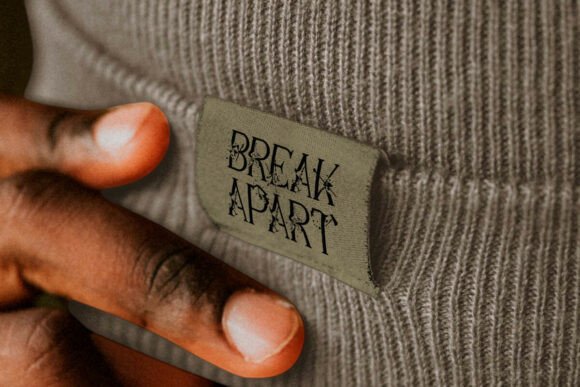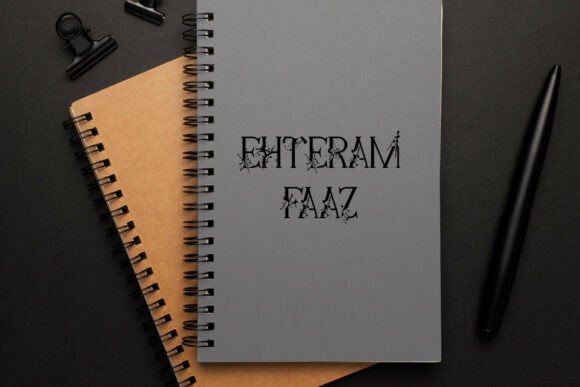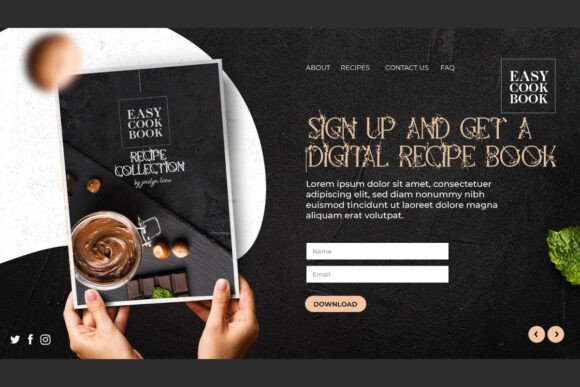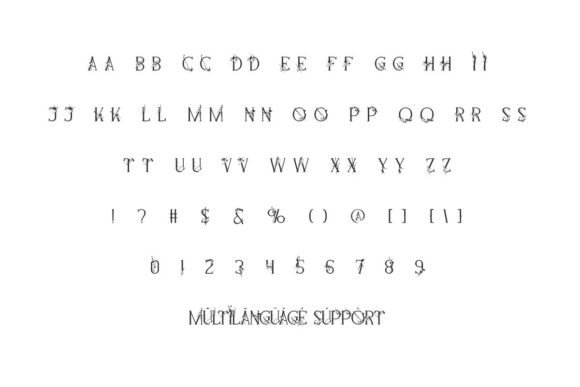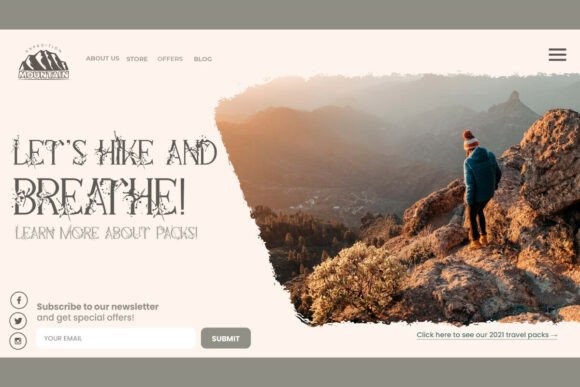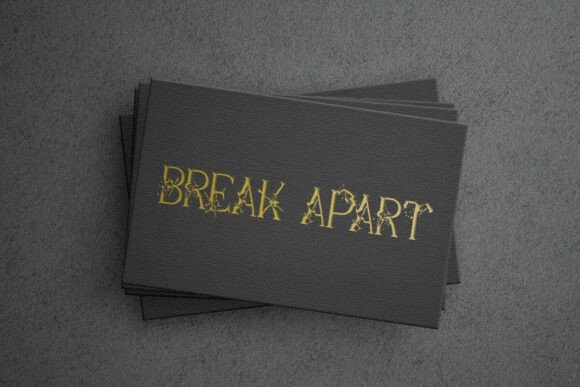
Unleashing the Raw Energy of Typography
Have you ever been so captivated by a design that you can almost hear the sound of shattering glass or splattering paint? For designers, this kind of creative moment is what makes the craft so thrilling. It’s the spark that sets our imaginations ablaze and inspires us to push the boundaries of what’s possible. And for those seeking to create a high-impact visual statement, there’s one typeface that’s sure to shatter expectations: the Break Apart Font.
This deliberately fractured and splattered decorative typeface is a powerful tool for designers looking to convey raw energy, destruction, or unconventional creativity. By embracing the beauty of “controlled chaos,” the Break Apart Font offers a unique visual texture that can elevate any project from bland to grand. Whether you’re designing a gritty album cover or a bold headline for a tech brand, this font is sure to make a lasting impression.
Break Apart Font Key Features
- Character Set: This font includes a comprehensive character set, including Latin, Cyrillic, and Greek alphabets, as well as a range of symbols and punctuation marks.
- Unique Characteristics: Break Apart Font features a unique, hand-drawn design that gives it a distinctive and eye-catching appearance.
- Font Weight: The font is available in regular and bold weights, allowing users to choose the weight that best suits their design needs.
Break Apart Font Review
Overall, I’m quite impressed with the Break Apart Font. It has a unique, modern feel that would work well for digital products and websites.
- The font is highly customizable, allowing designers to adjust the spacing, size, and even individual letter styles.
- The font family is extensive, with many different weights and styles to choose from.
- The font is highly legible, even at smaller sizes, making it perfect for body text.
- The font can be quite busy, with many different elements competing for attention. This can make it difficult to read in certain contexts.
- The font’s customizability can also be a double-edged sword. With so many options available, it can be difficult to know where to start.
- The font may not be suitable for print materials, as it can be quite pixelated at larger sizes.
Overall, I’d say the Break Apart Font is a solid choice for designers looking for a modern, customizable font. While it may have some limitations, its strengths far outweigh its weaknesses.
Use Break Apart Font to create unique designs, such as:
- Typographic art
- Custom logos
- Illustrations
- Text-based graphics
Remember to experiment with different fonts, sizes, and colors to get the most out of Break Apart Font.
Alternatives to Break Apart Font
1. Fragmented Font
Fragmented Font is a type of font that is designed to break apart into smaller pieces, creating a sense of disintegration. It is often used in graphic design to convey a sense of chaos or disorder. Compared to Break Apart Font, Fragmented Font is more dramatic and attention-grabbing, making it suitable for designs that require a strong emotional impact.
2. Shattered Font
Shattered Font is a type of font that is designed to appear as if it has been shattered or broken into pieces. It is often used in designs that require a sense of tension or conflict. Compared to Break Apart Font, Shattered Font is more aggressive and edgy, making it suitable for designs that require a bold and attention-grabbing effect.